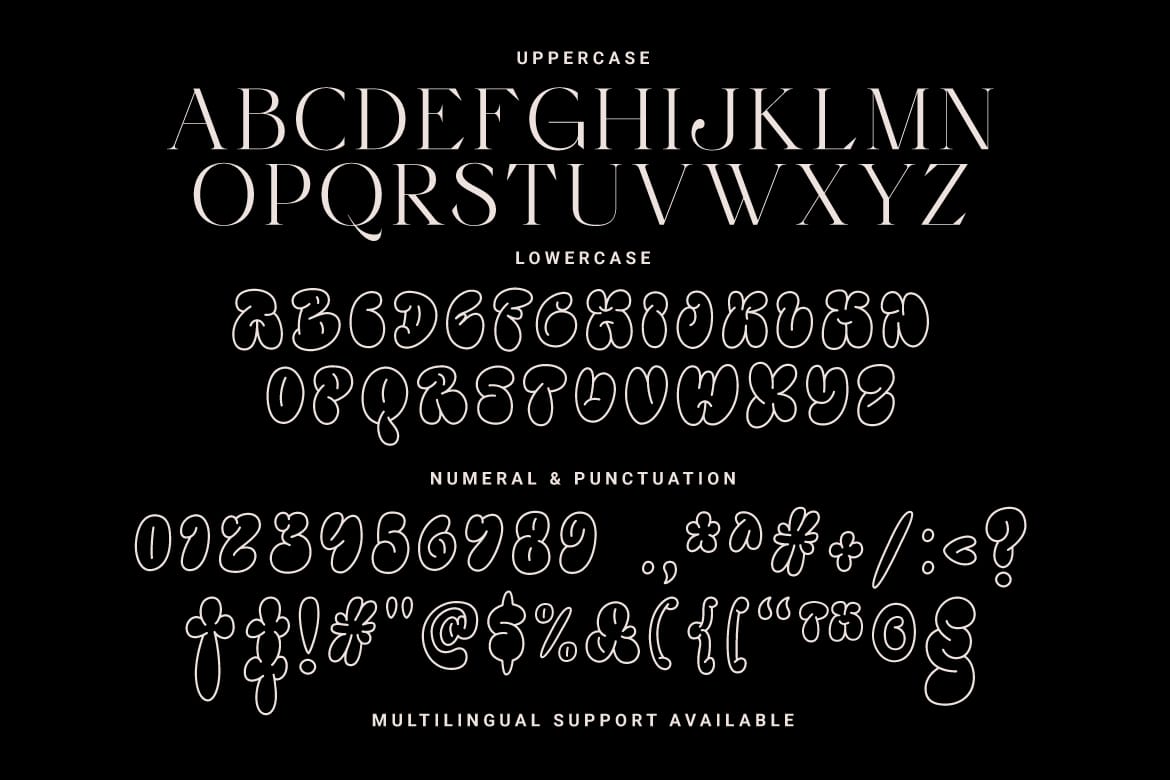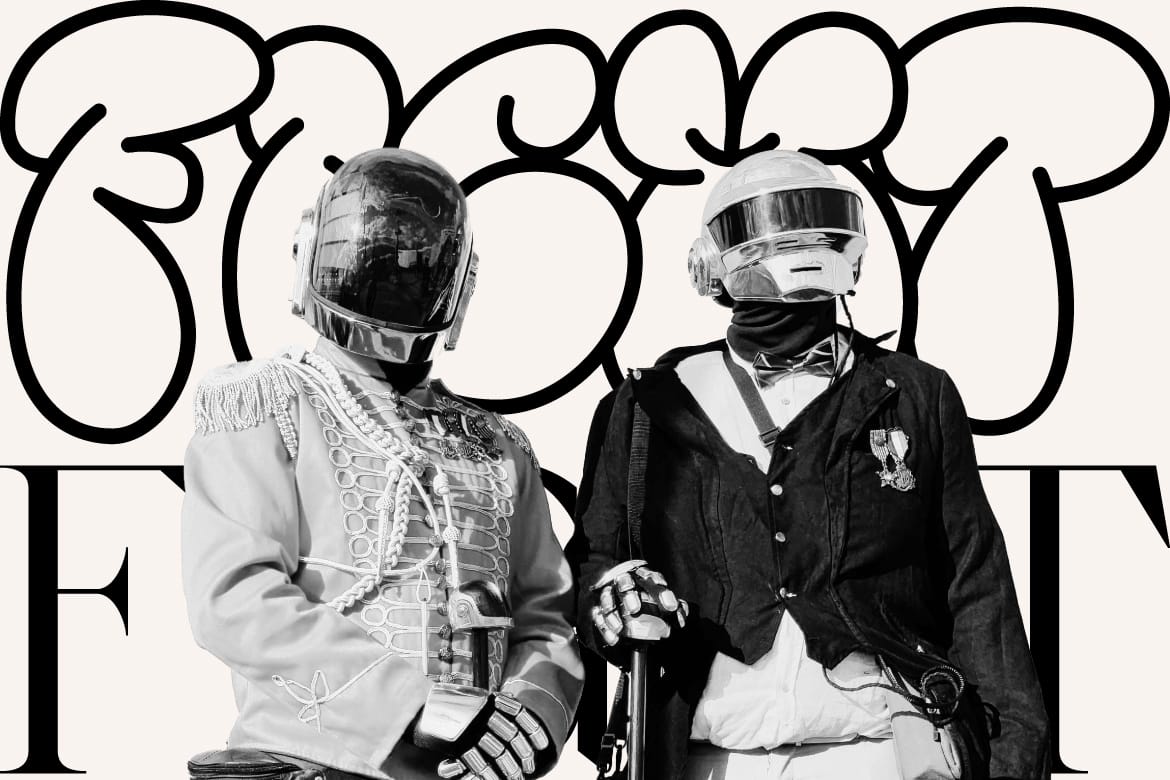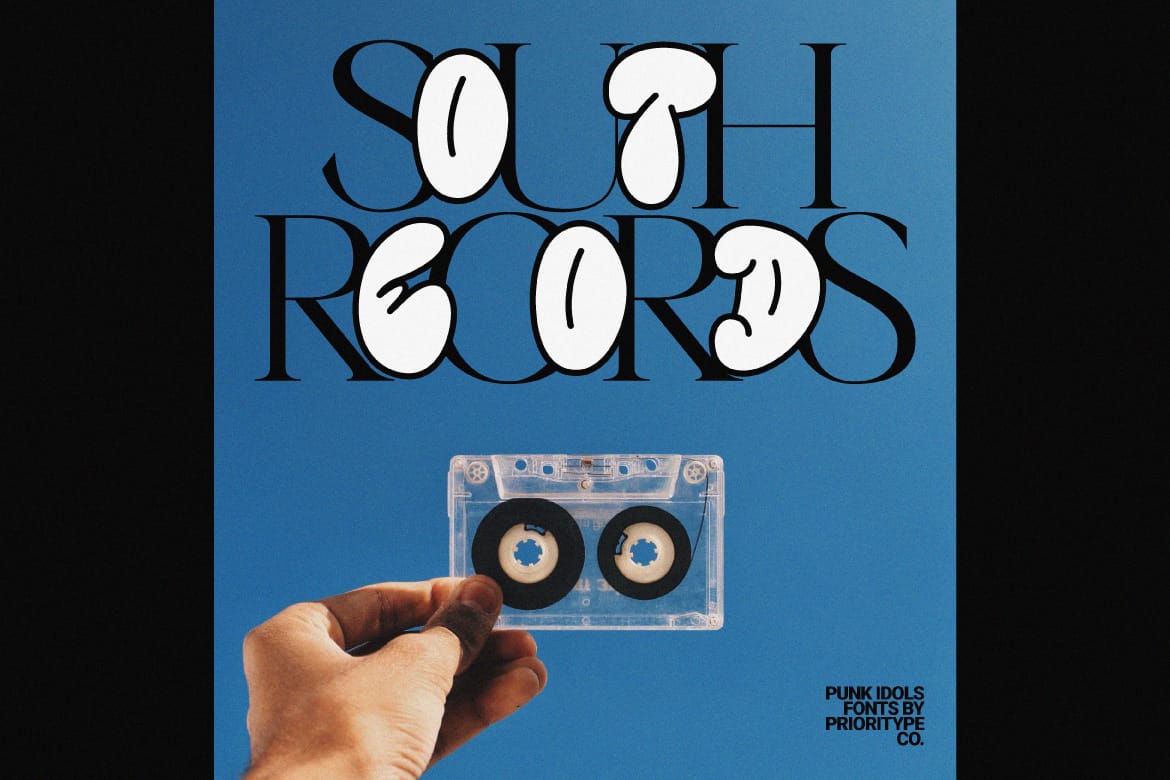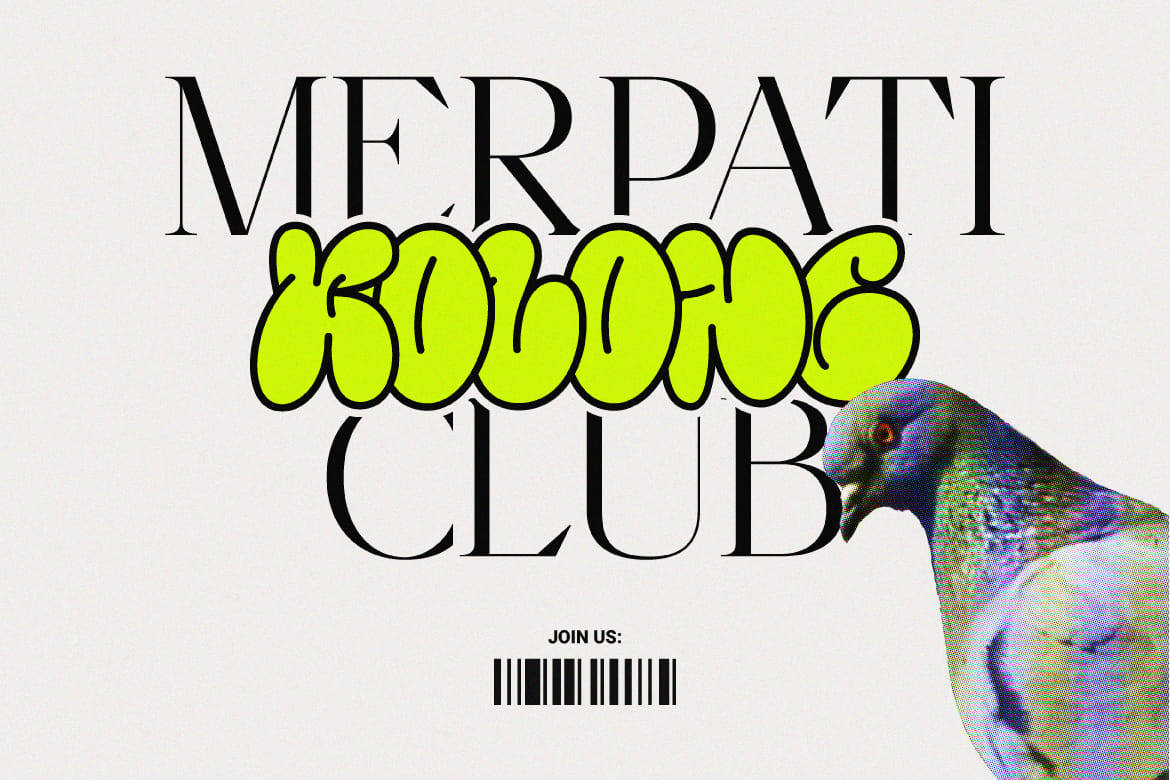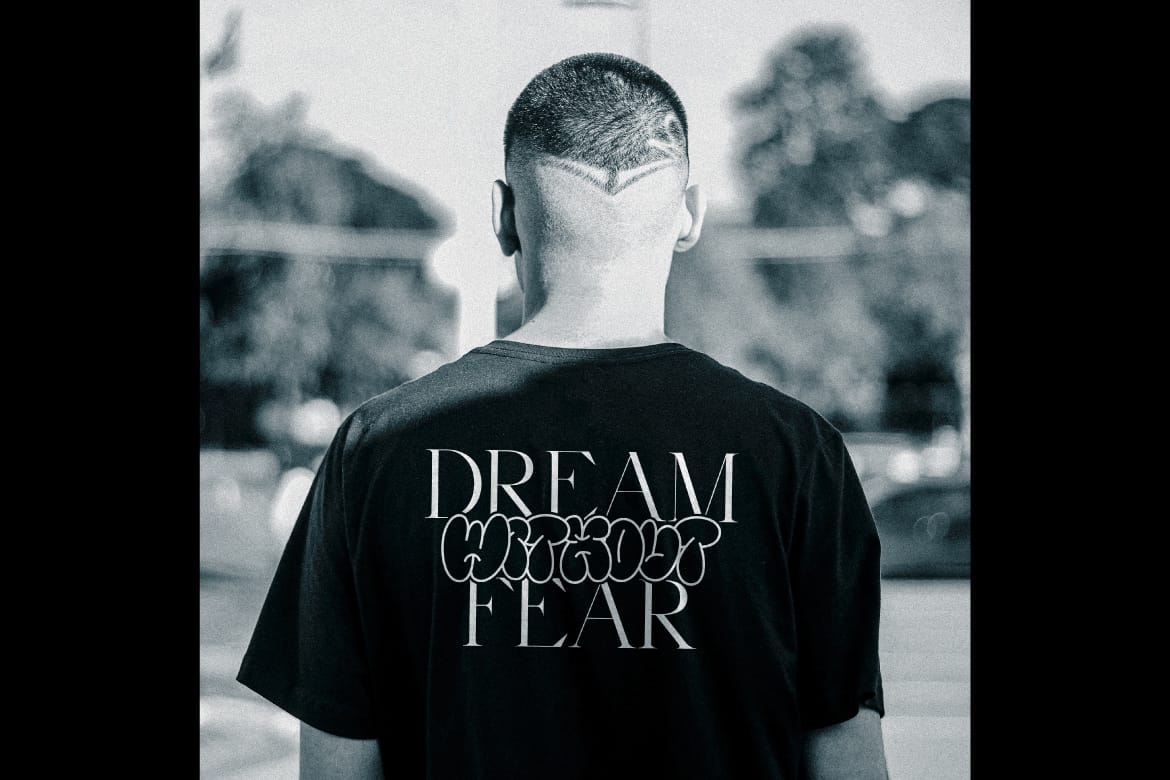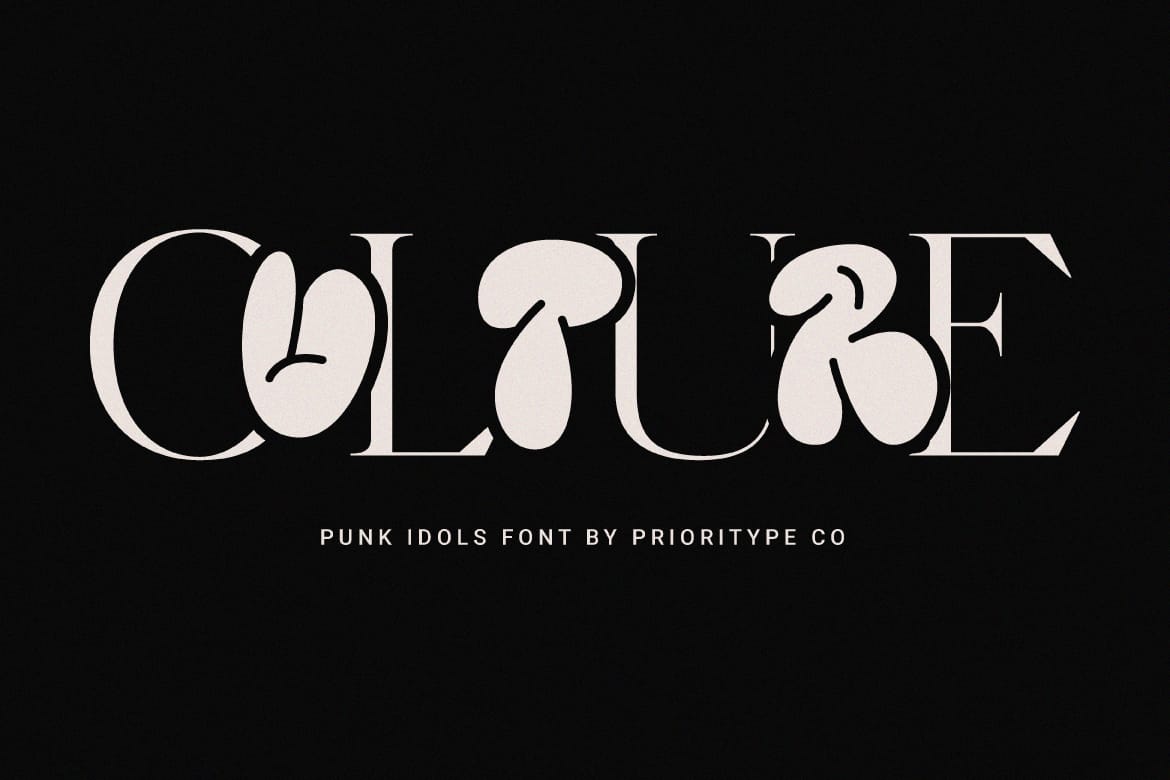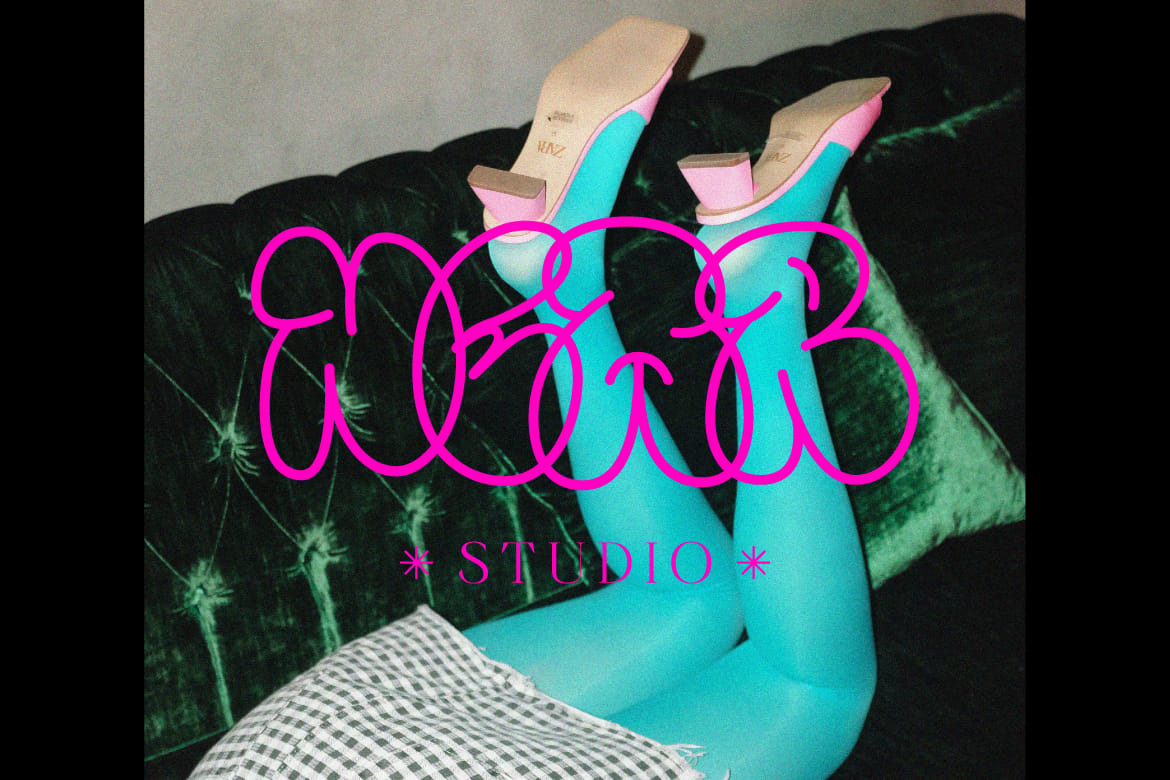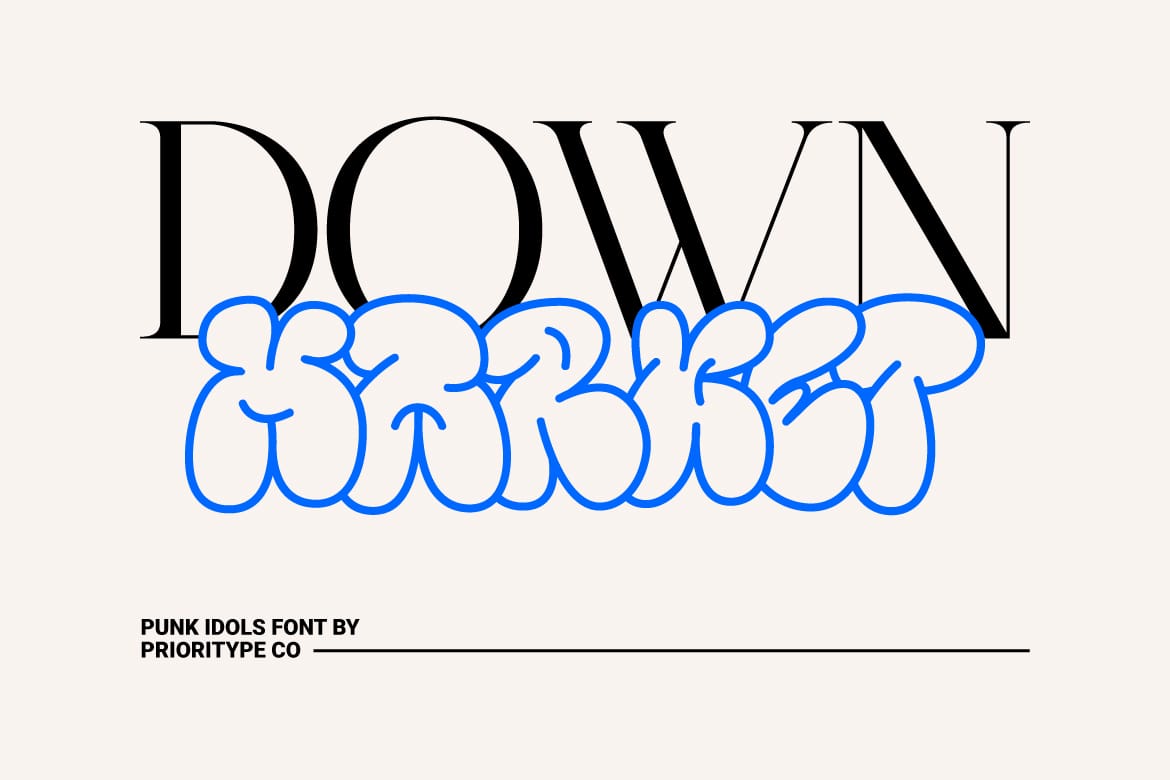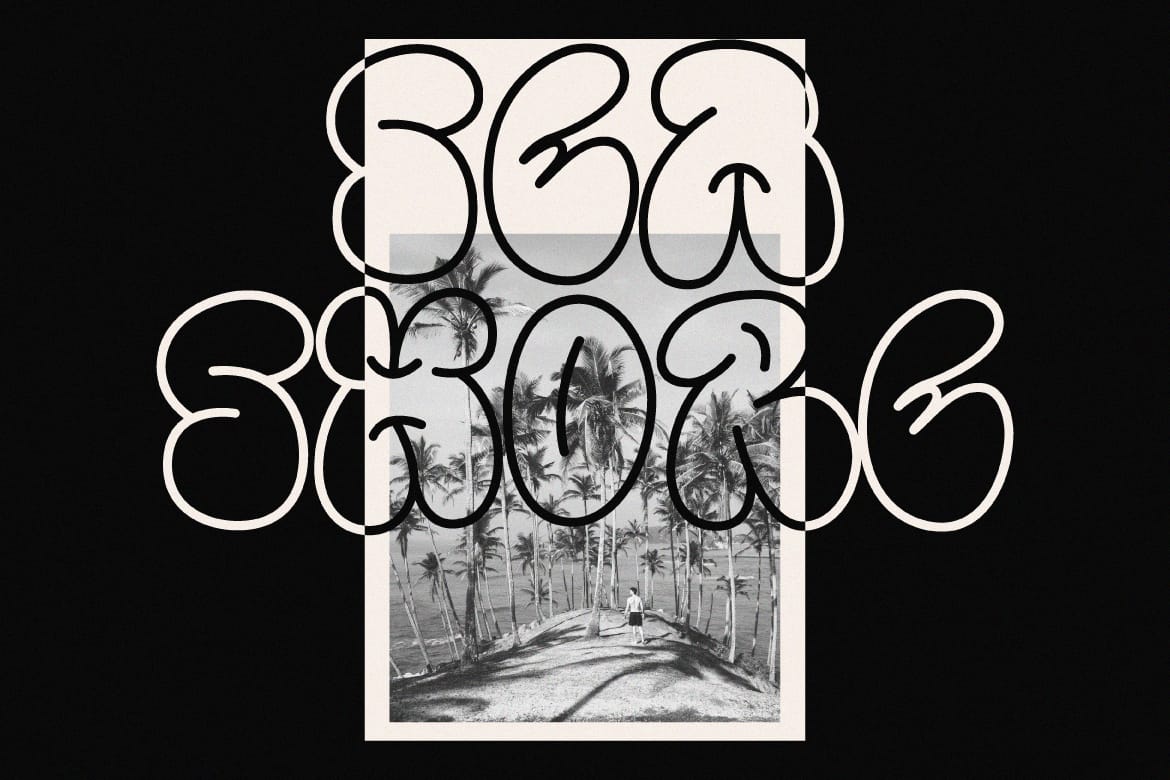
Punk Idols is a combined serif and throw-up graffiti (hand-drawn) font packaged in one font. If you use it you are very flexible in exploring designs for any project such as posters, logos, merchandise and even branding.
Features: Uppercase, Lowercase, Numeral, Punctuation & Multilingual.
- Serif and graffiti in one
- Multilingual support included